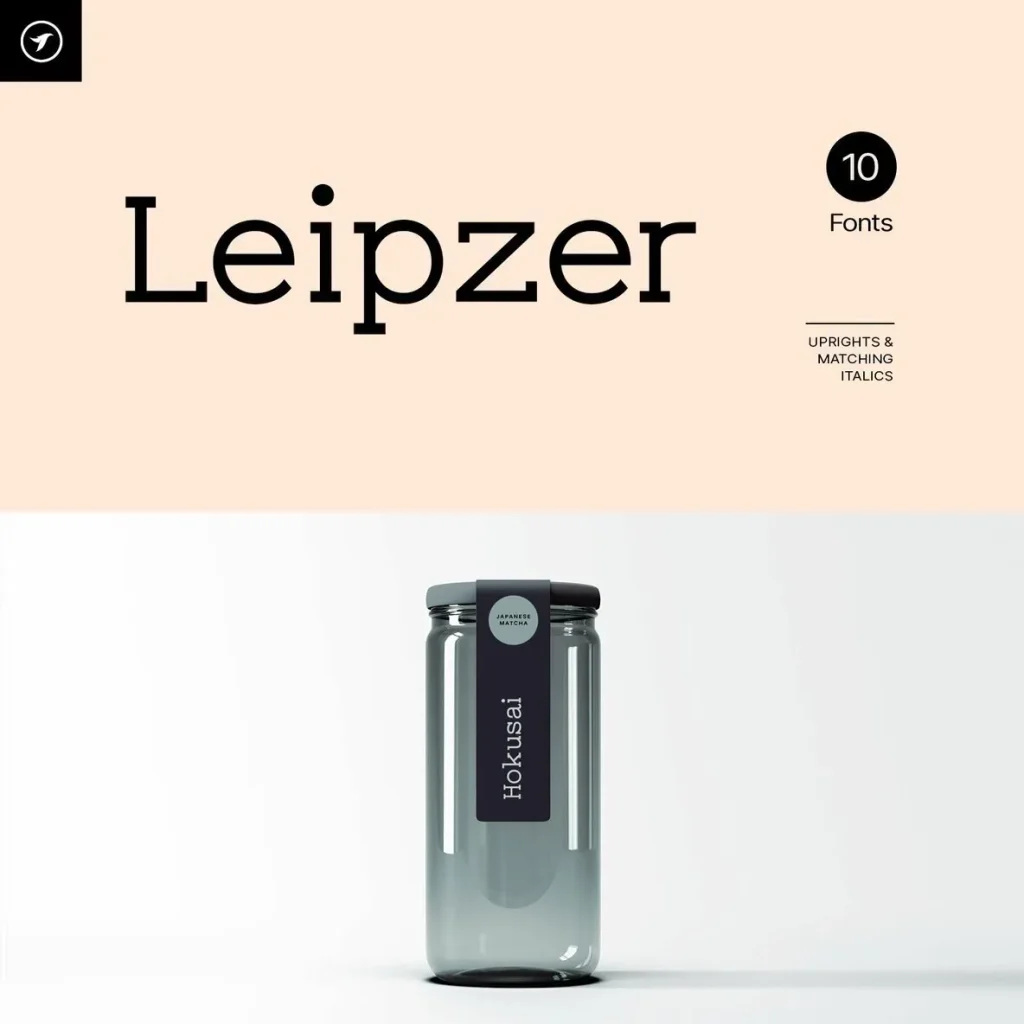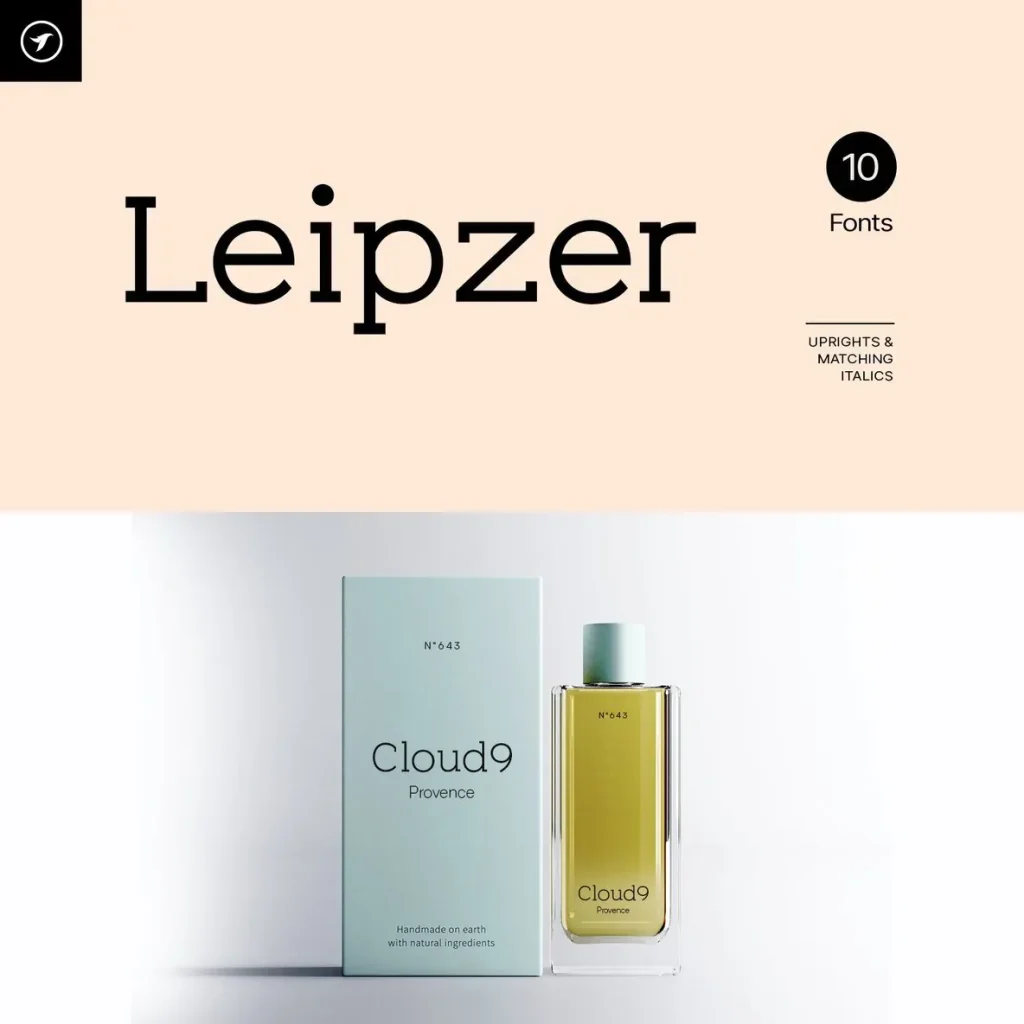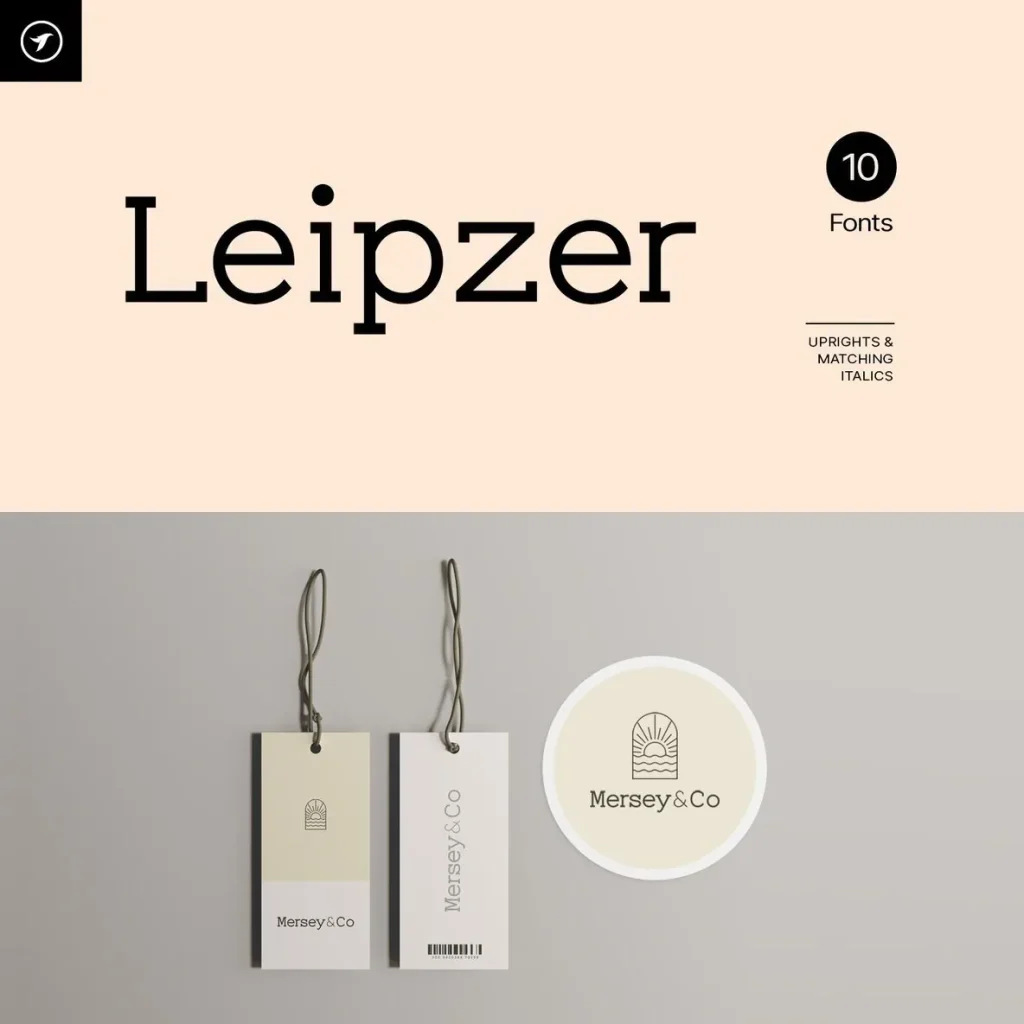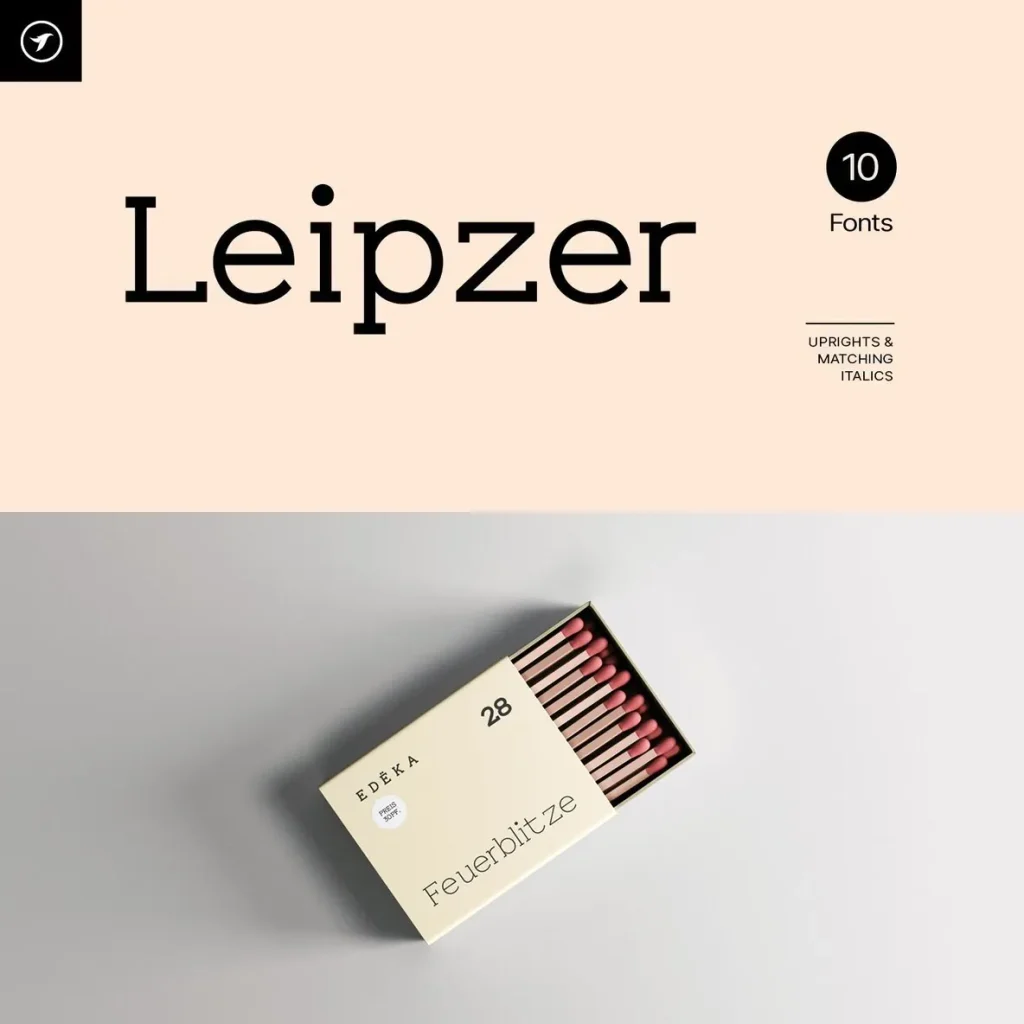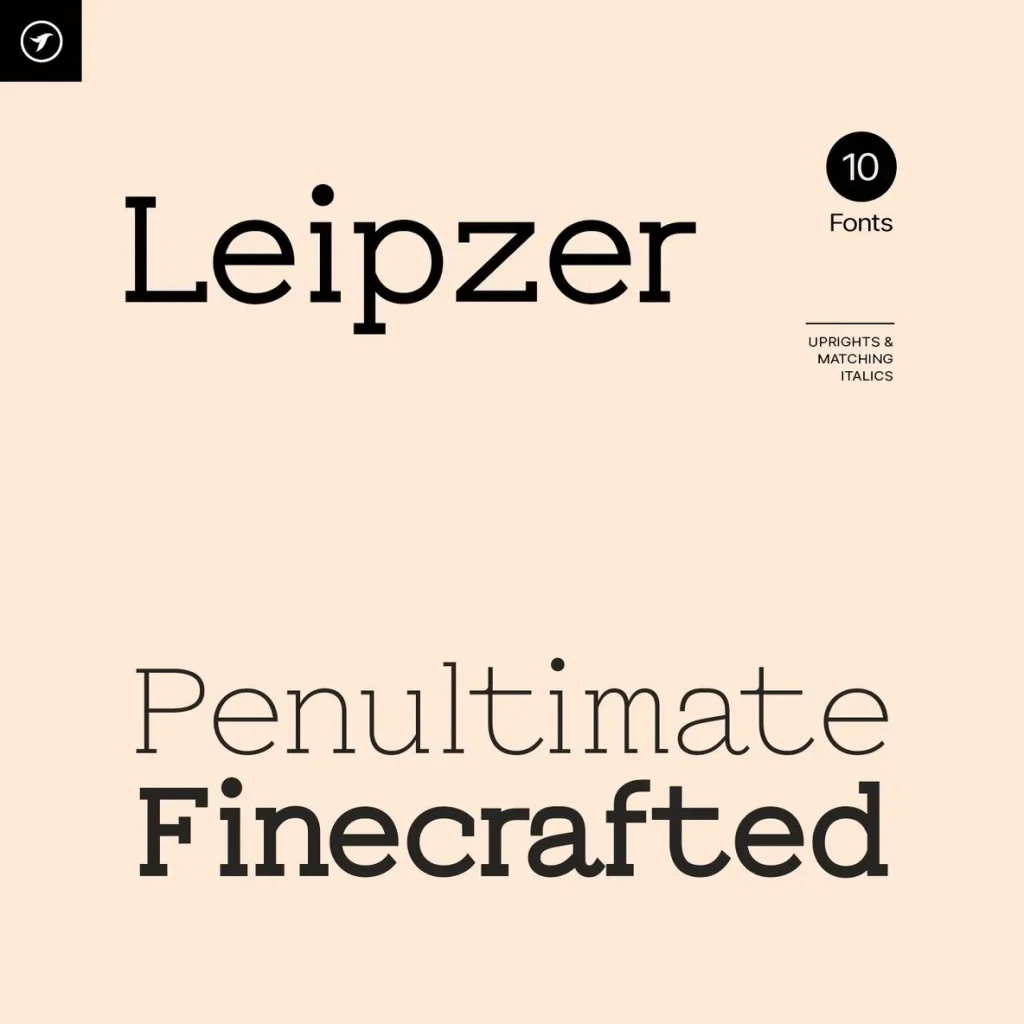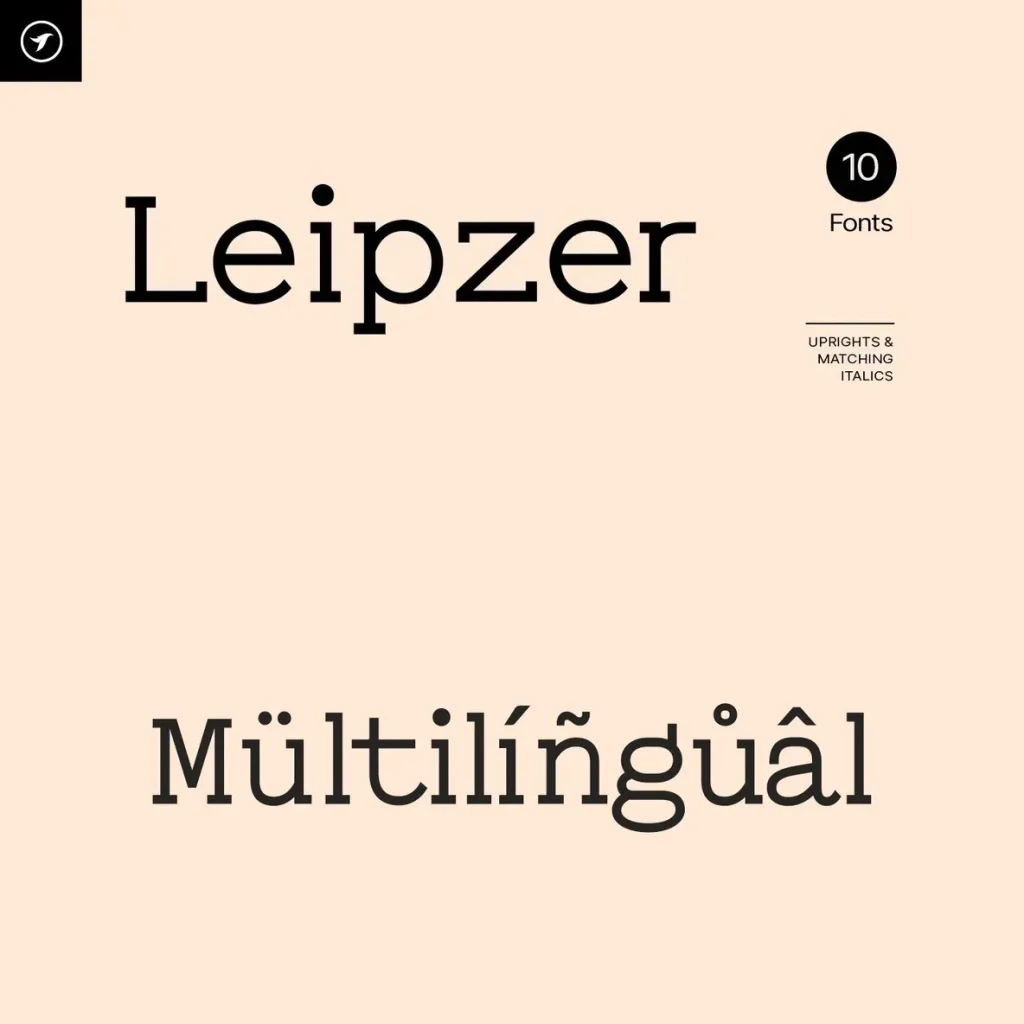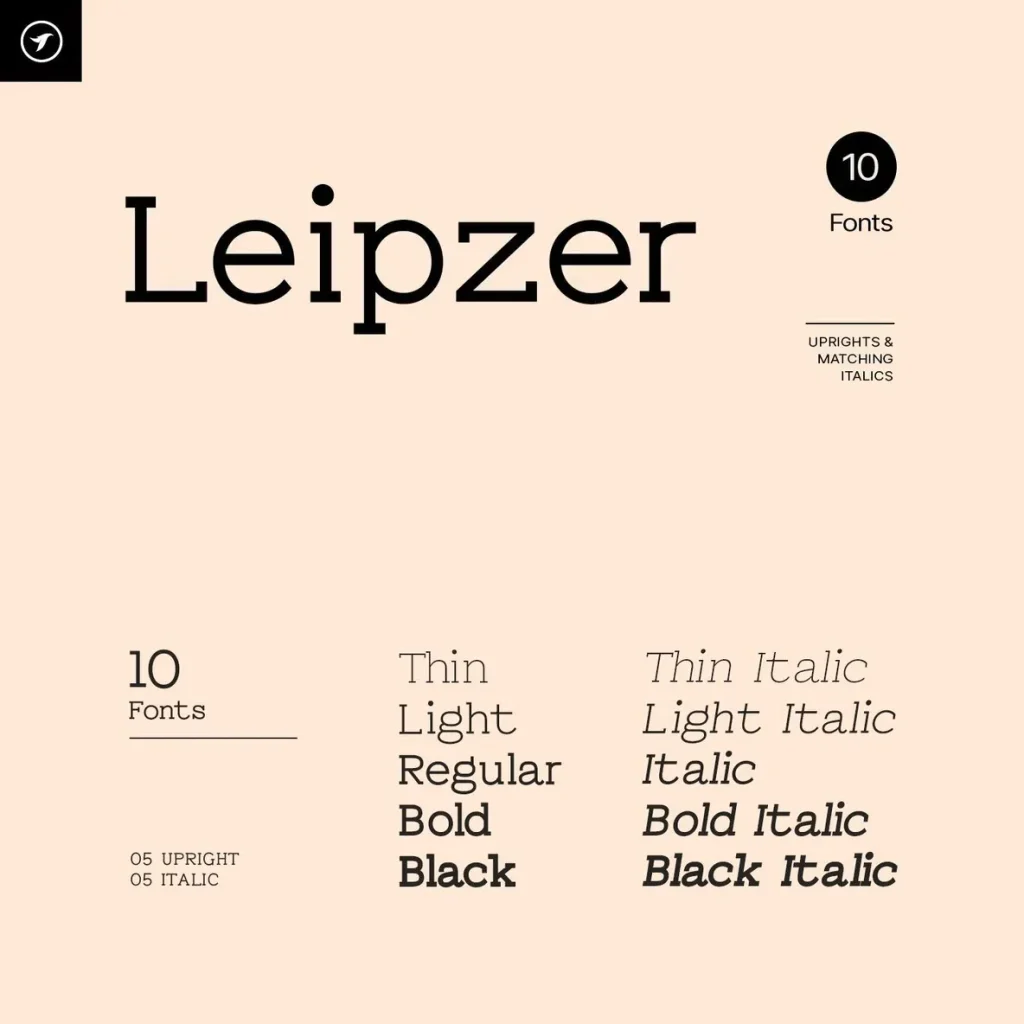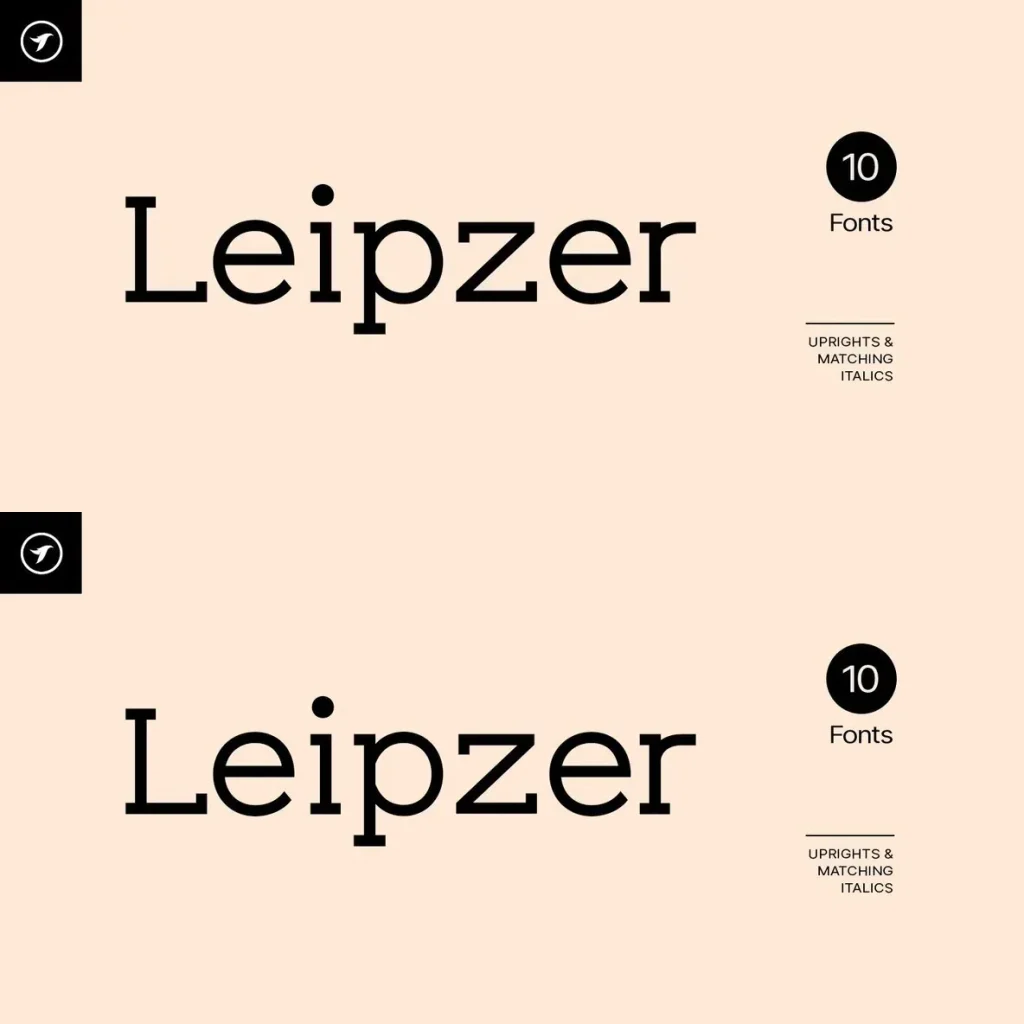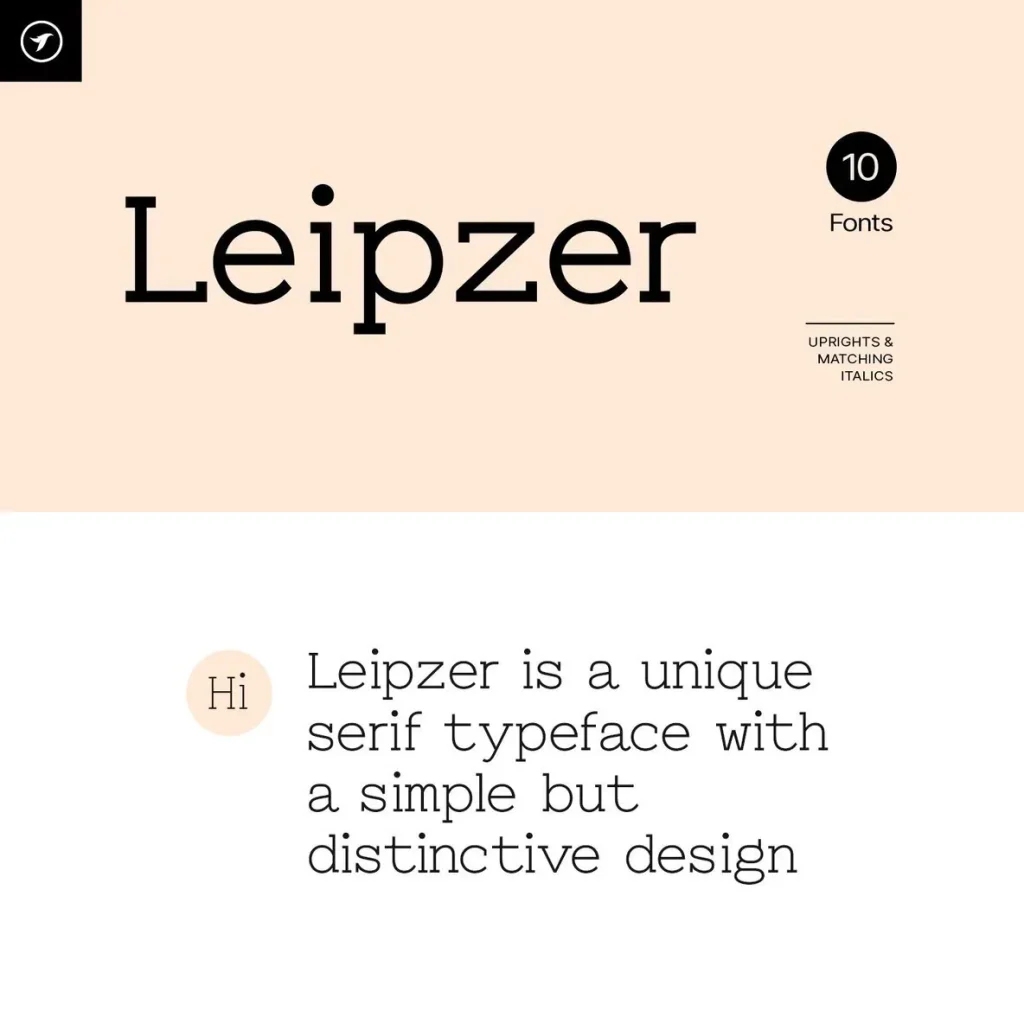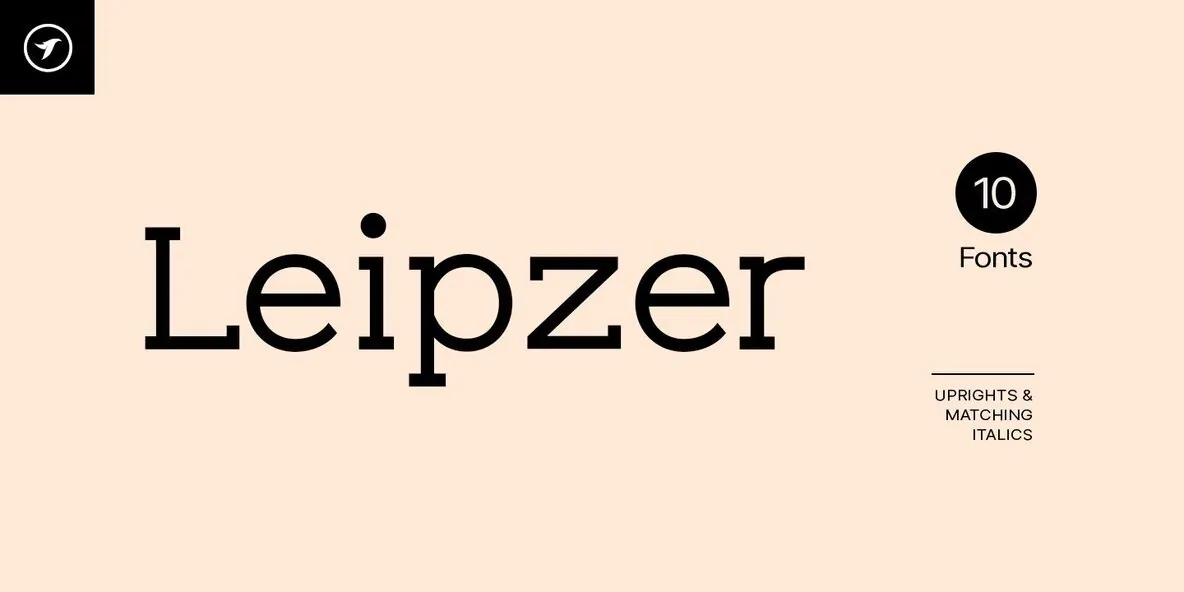
Leipzer — Serif Poise with Tradition
Leipzer is a simple serif typeface designed with classic elegance, balanced proportions, and timeless readability. Its refined details give the letterforms a traditional character, while the overall structure remains clear, measured, and easy to use across a range of visual settings.
This sophisticated typographic voice suits both modern and classic applications. Leipzer works especially well for editorial design, branding, books, packaging, and premium visual communication, where a serif font needs to feel polished, readable, and quietly authoritative.